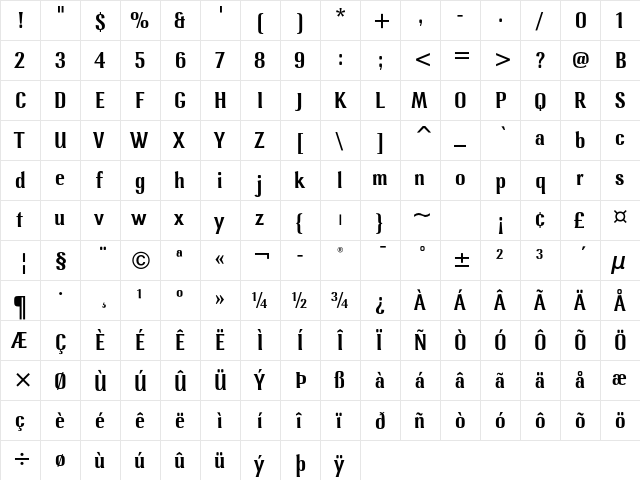
Lennox ITC Std Medium
| Designer | Alexander Ruhl |
Design Context for Lennox ITC Std Typeface
Lennox ITC Std takes a measured approach to typography — its balanced proportions and neutral character make it a reliable workhorse for both digital and print work.